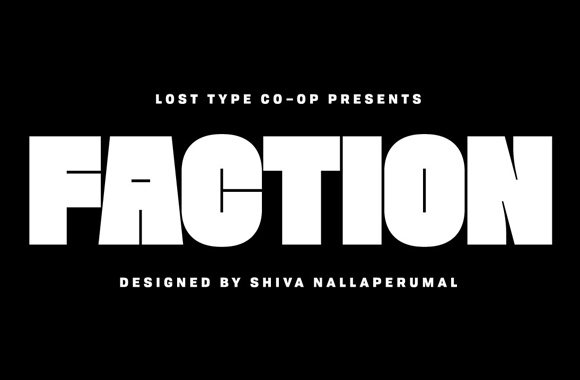
Faction Font Family
FACTION developed from my ongoing fascination with the relationship between forms and counter-forms. With my previous release, CALCULA from Typotheque, I tried to explore this relationship as a strict ratio between white (space) and black (letterforms). To this end the letters adapt and interlock achieving a maze like quality.